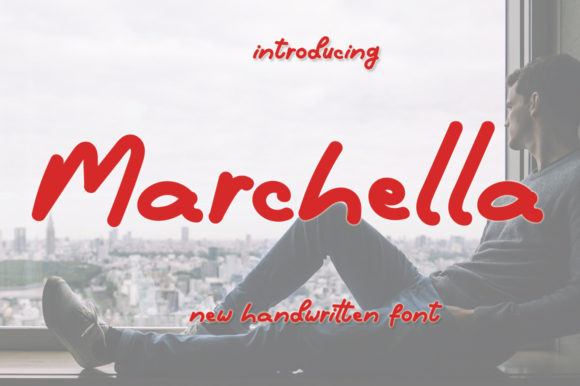
Introducing Marchella Font: A Symphony of Sophistication for Your Projects
In a world saturated with digital monotony, the Marchella Font emerges as a captivating symphony of elegance, transforming your creative projects into masterpieces of visual delight. Its meticulously crafted curves and delicate strokes evoke a sense of timelessness, adding a touch of charm and sophistication to every design.
Immerse yourself in the boundless beauty of Marchella, a font that embodies the essence of grace and refinement. With its flowing lines and enchanting aesthetic, Marchella effortlessly elevates your projects, leaving a lasting impression on all who behold it.
Whether you're crafting a heartfelt wedding invitation, designing a stylish logo, or creating stunning social media graphics, Marchella is your perfect companion. Its versatility allows you to effortlessly adapt it to a myriad of projects, ensuring that your designs stand out from the crowd.
Step into a world of creative possibilities with Marchella Font, where your imagination knows no bounds. Its timeless beauty and modern appeal make it an essential tool for designers, artists, and anyone seeking to add a touch of elegance to their projects.
**Unleash the Power of Marchella Font:**
* Effortlessly Elevate Your Designs: Elevate your designs with Marchella's sophisticated charm, transforming ordinary projects into captivating masterpieces.
* Timeless Beauty: Experience the enduring beauty of Marchella, a font that transcends time, adding a touch of elegance to any project.
* Unparalleled Versatility: Seamlessly adapt Marchella to a wide range of projects, from formal invitations to playful social media graphics.
* Creative Freedom: Unleash your creativity with Marchella, a font that empowers you to express your unique style and vision.
* Make a Lasting Impression: Leave a lasting impression on your audience with Marchella's captivating aesthetics, ensuring your designs are remembered.
**Marchella Font: The Perfect Choice for:**
* Wedding Invitations: Create breathtaking wedding invitations that capture the essence of love and romance with Marchella's delicate touch.
* Logos and Branding: Design sophisticated logos and branding materials that exude professionalism and elegance, leaving a lasting impression on your clients.
* Social Media Graphics: Engage your audience with captivating social media graphics that showcase Marchella's timeless beauty and charm.
* Website Design: Elevate your website's design with Marchella's sophisticated aesthetics, creating a user experience that exudes sophistication.
* Creative Projects: Unlock your creativity and bring your imagination to life with Marchella, the perfect font for any creative project.